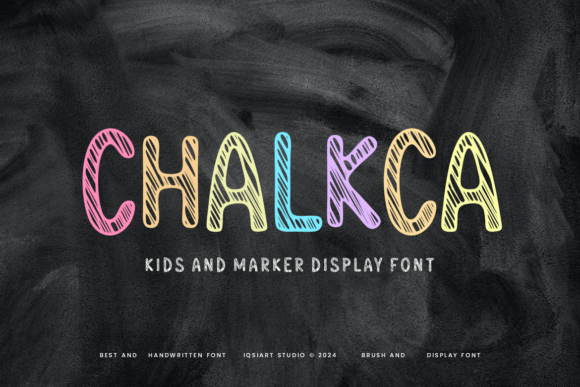
Unleash Your Inner Child: Discover the Joy of Chalkca Font
Do you remember the thrill of creating art with chalk on the sidewalk or writing with colorful markers on a summer day? For many of us, these carefree moments are etched in our memories as a time of unbridled creativity and imagination. As designers, we strive to recapture that sense of wonder and playfulness in our work.
Enter the Chalkca Font, a delightful and whimsical typeface that embodies the spirit of childhood creativity. With its bold, rounded letters, this font is perfect for kids’ projects, school activities, and vibrant designs that demand attention. Whether you’re working on a children’s book, a school newsletter, or a fun promotional campaign, the Chalkca Font is a valuable addition to your design toolkit.
By incorporating the Chalkca Font into your designs, you can add a touch of whimsy and personality that will resonate with your audience and leave a lasting impression.
Chalkca Font Key Features
- Font Family: Chalkca Font is a unique, hand-drawn font family with multiple styles and weights, including Regular, Italic, Bold, and Bold Italic.
- Character Count: Chalkca Font contains over 250 characters, including uppercase and lowercase letters, numbers, punctuation marks, and special characters.
- Unique Characteristics: Chalkca Font features a distinctive, hand-drawn aesthetic with subtle imperfections and texture, giving it a warm, organic feel that’s perfect for creative and artistic applications.
Designer Review: Chalkca Font
Chalkca Font is a unique and eye-catching font that can add a personal touch to any design project. It works well for ✨ titles, headings, and even for creating a playful atmosphere in advertisements and social media graphics.
One of the strengths of Chalkca Font is its ✨ legibility, even at smaller font sizes. The font’s ✨ rounded edges and soft curves make it easy to read, even for users with visual impairments. Additionally, the font’s ✨ versatility allows it to be used in a variety of design contexts, from modern websites to traditional print materials.
However, Chalkca Font also has some limitations. ⚠️ The font’s ✨ imperfections can sometimes make it look inconsistent, which may detract from the overall design. Additionally, the font may not be suitable for ✨ formal or professional designs, as it can come across as too casual or playful.
- Use Chalkca Font for titles, headings, and emphasis.
- Combine Chalkca Font with other fonts to create a balanced design.
- Avoid using Chalkca Font for formal or professional designs.
- Be mindful of the font’s imperfections and adjust the design accordingly.
The Chalkca Font is ideal for:
- Creativity and art projects
- Choose a distressed background to resemble a worn chalkboard.
- Use Chalkca Font to write menu items in a cursive, whimsical style.
- Add illustrations of coffee cups, donuts, or other relevant items to enhance the design.